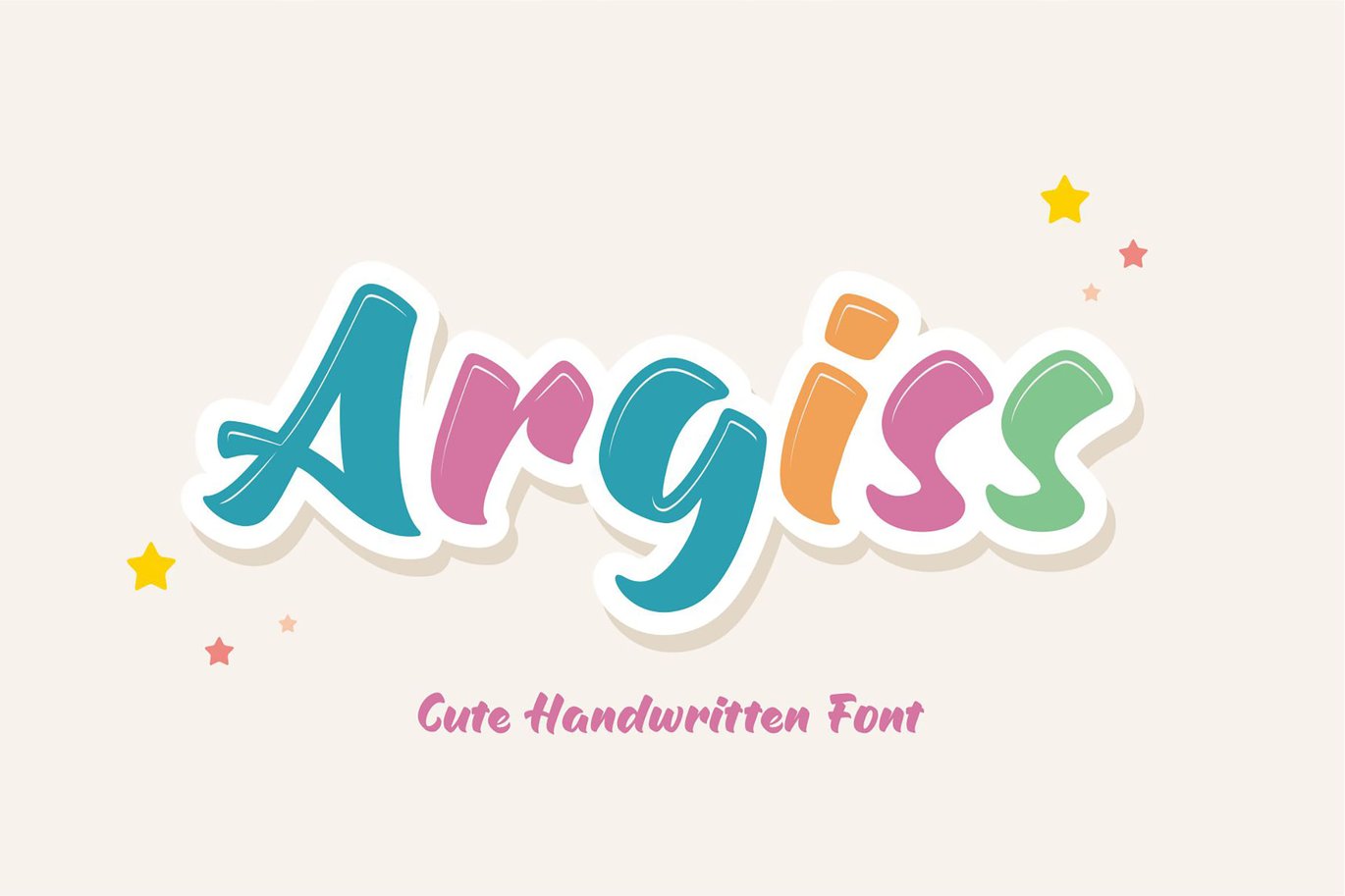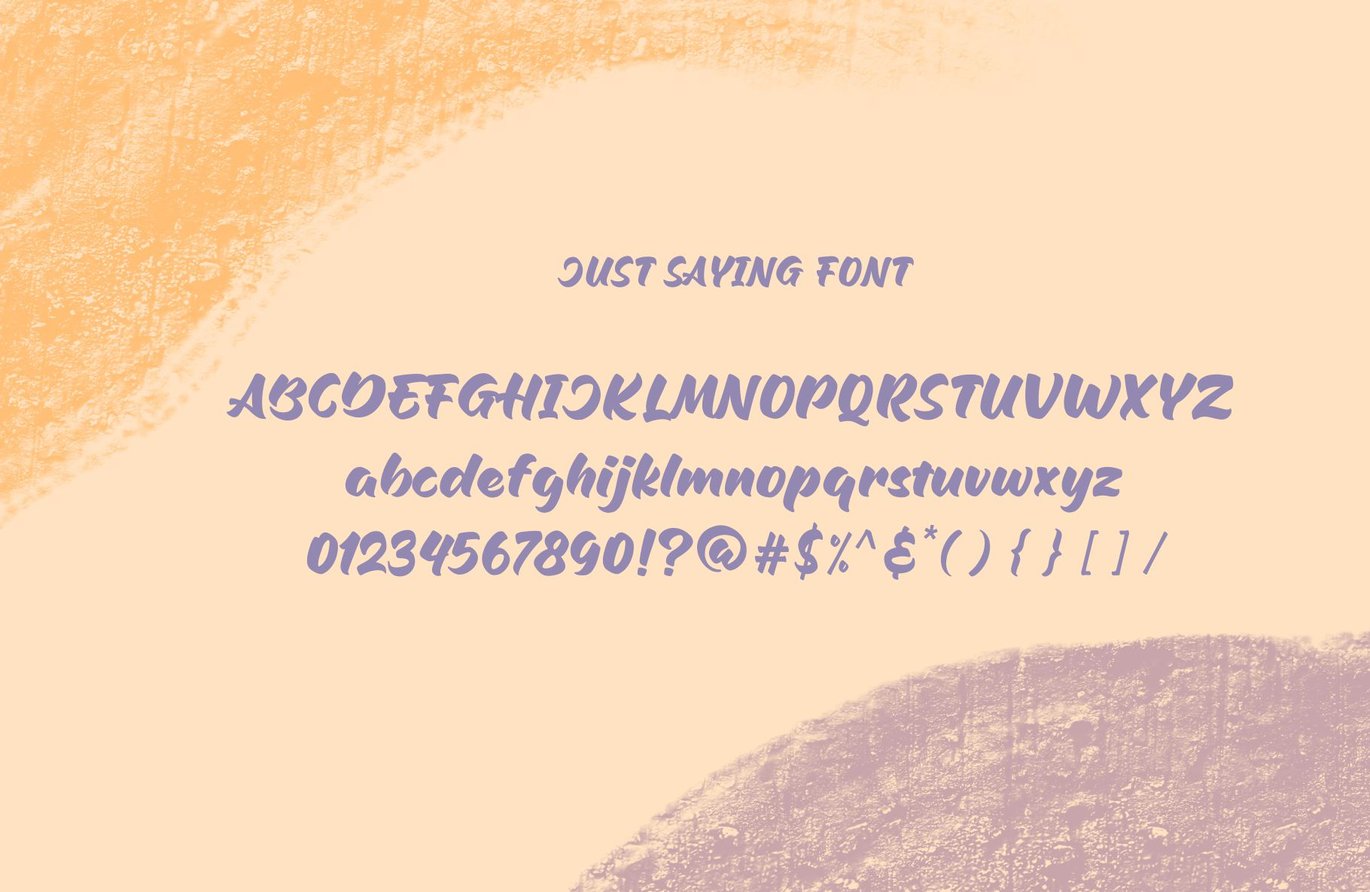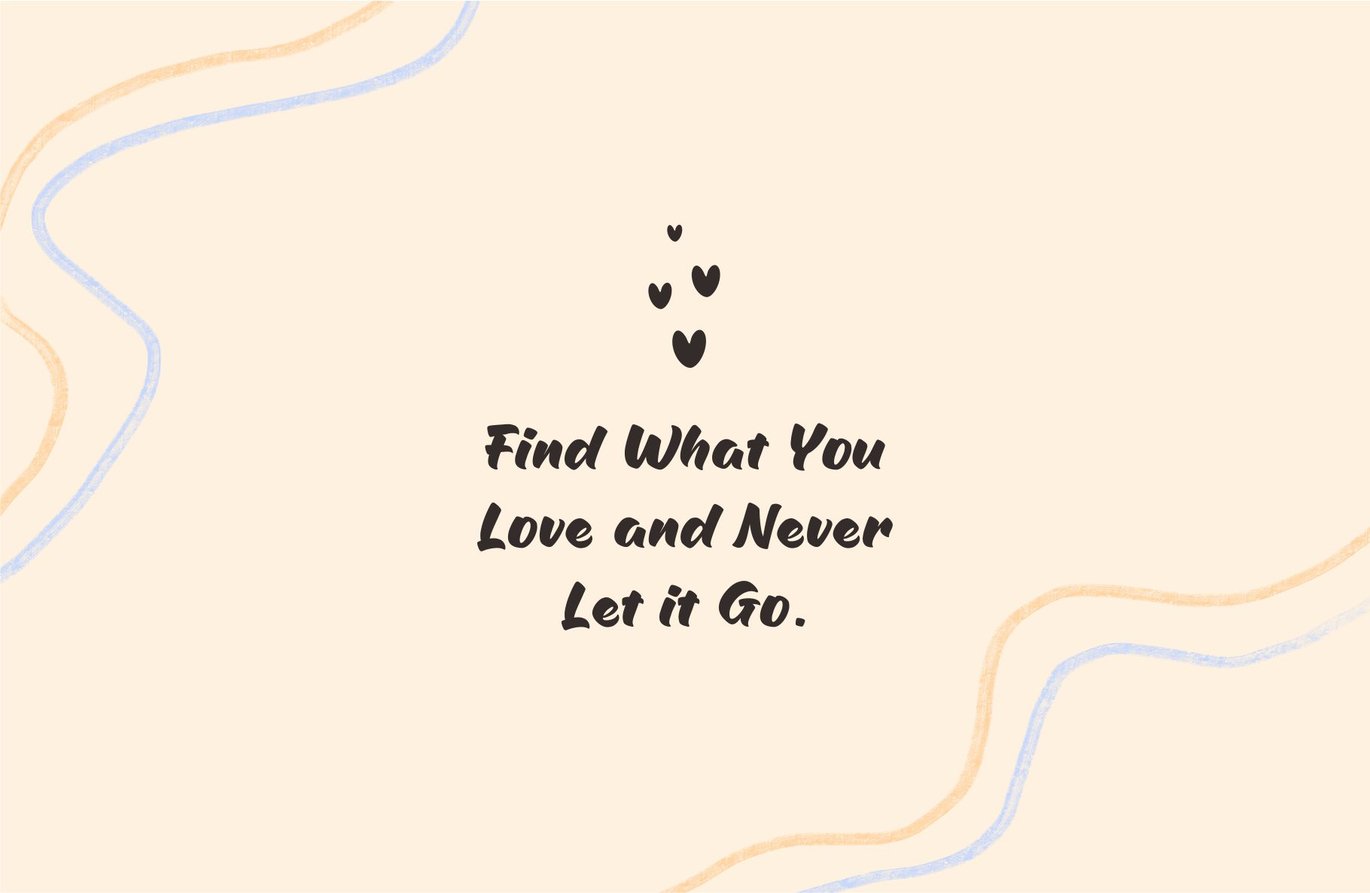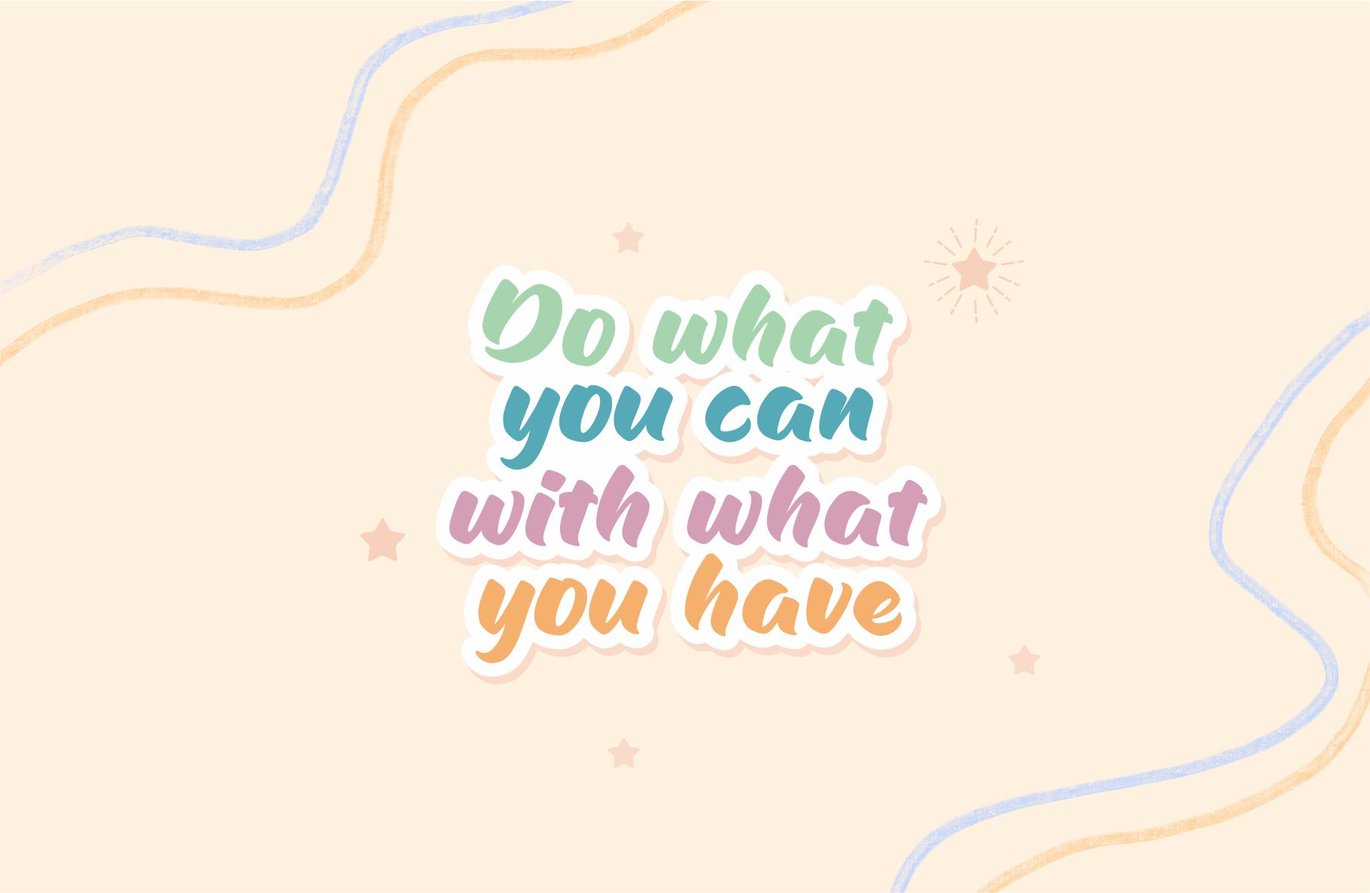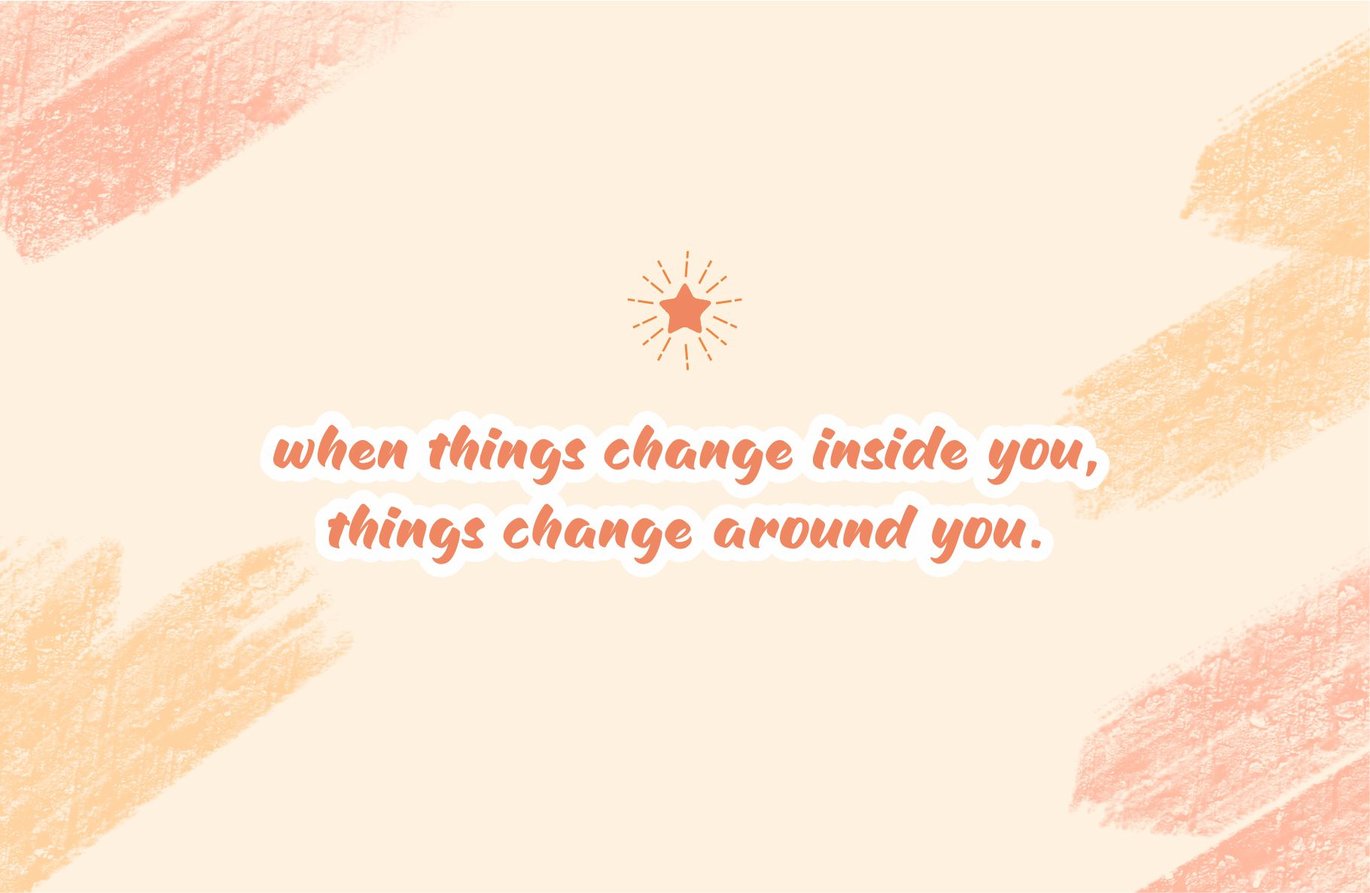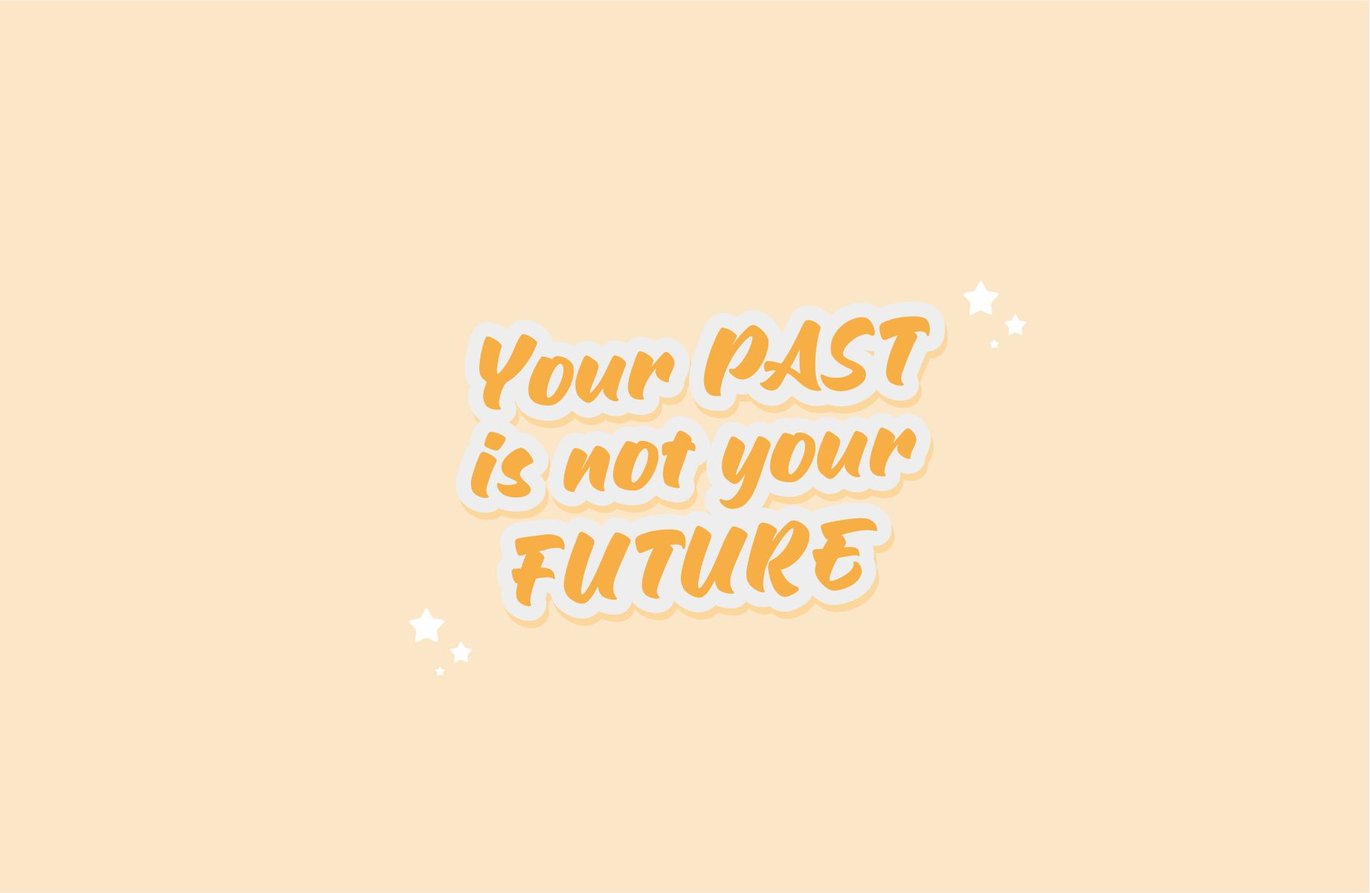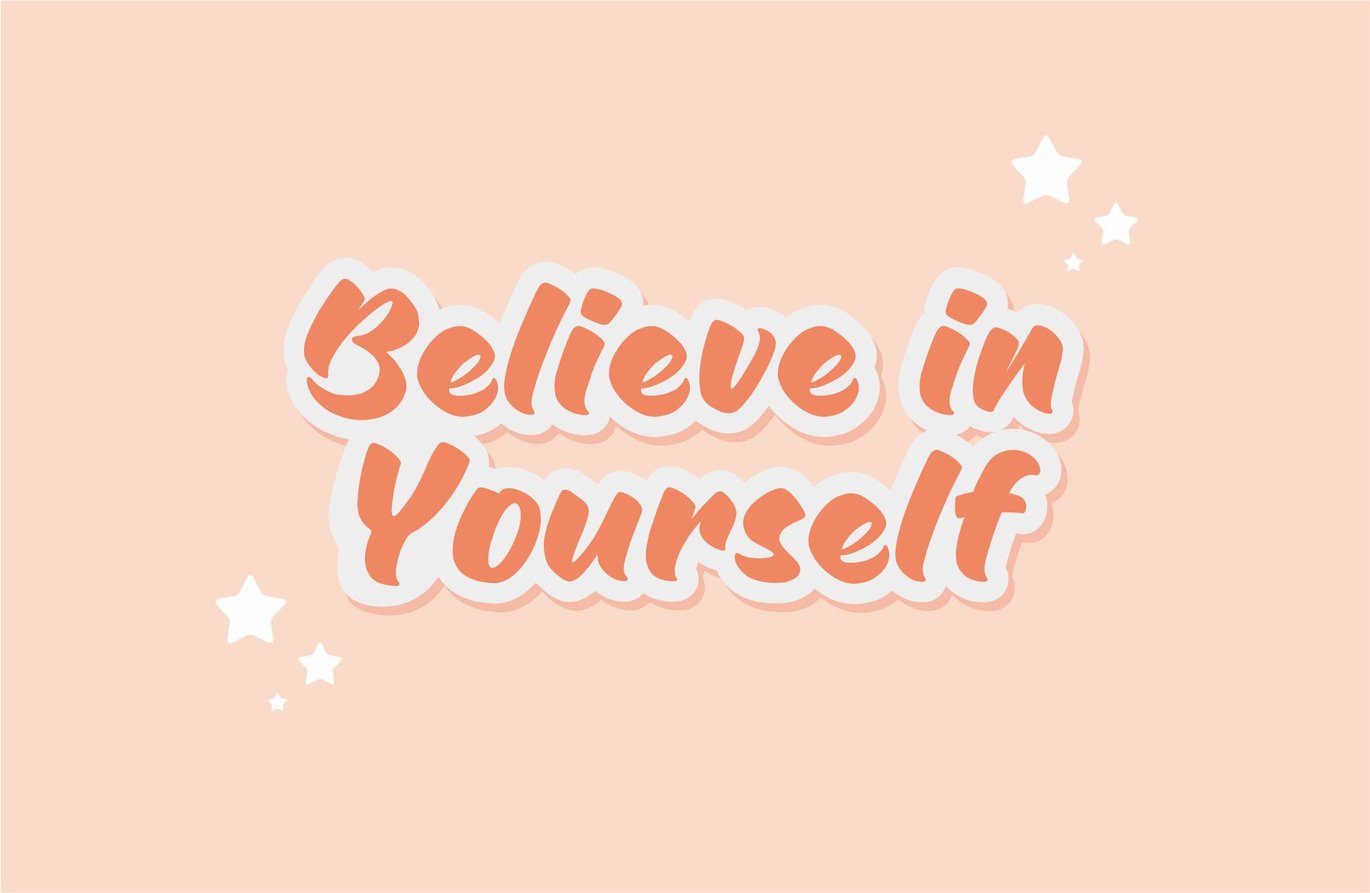
Argiss Handwritten Font
Argiss Handwritten Font – A cute and simple hand-lettered font! This font would be perfect for party invitations, baby showers, birthday cards and more.
Uppercase & Lowercase
Includes Numbers and Punctuation